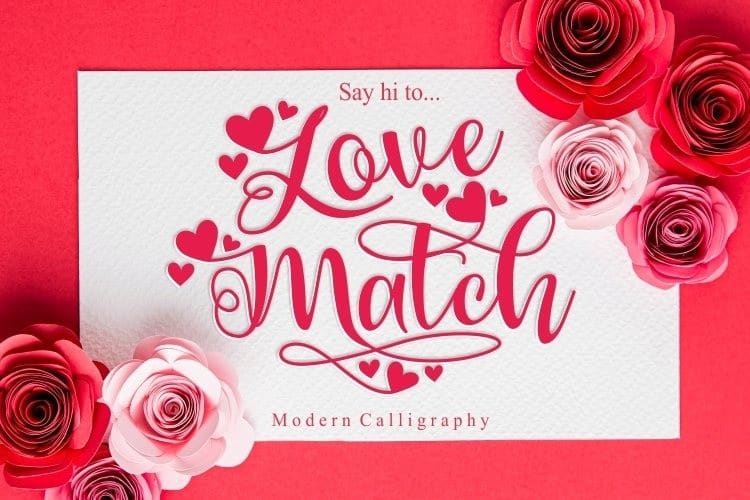
Love Match Font
Love Match Calligraphy Font whisk you away for a romantic rendezvous with your love of handwritten scripts. This font will looks awesome and amazing in many way to your latest project. Love Match is perfect for many different project such as logos & branding, invitation, stationery, wedding designs, social media posts, advertisements, product packaging, product designs, label, photography, watermark, special events or anything.